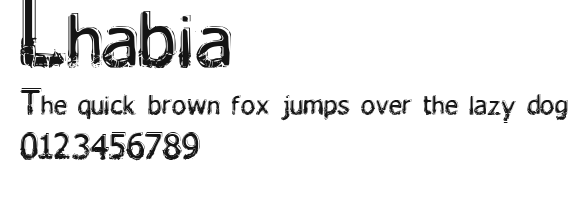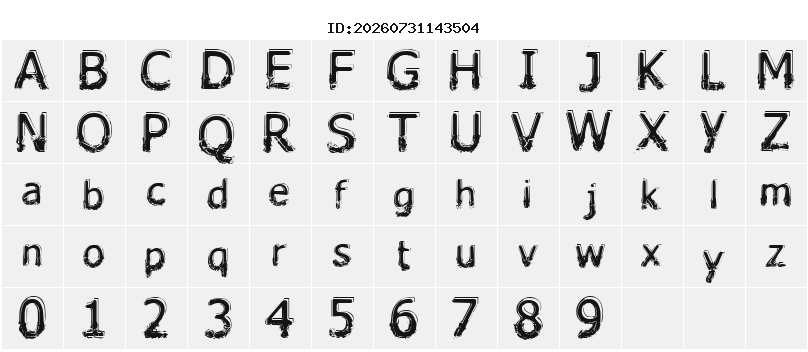
• Font Name: Lhabia
• Font Style: doggiestyle
• Full Font Name: Lhabia
About Lhabia.ttf
Lhabia.ttf is a modern, elegant sans-serif font designed for ultimate readability and visual harmony. Perfect for branding, headlines, web design, and print materials.